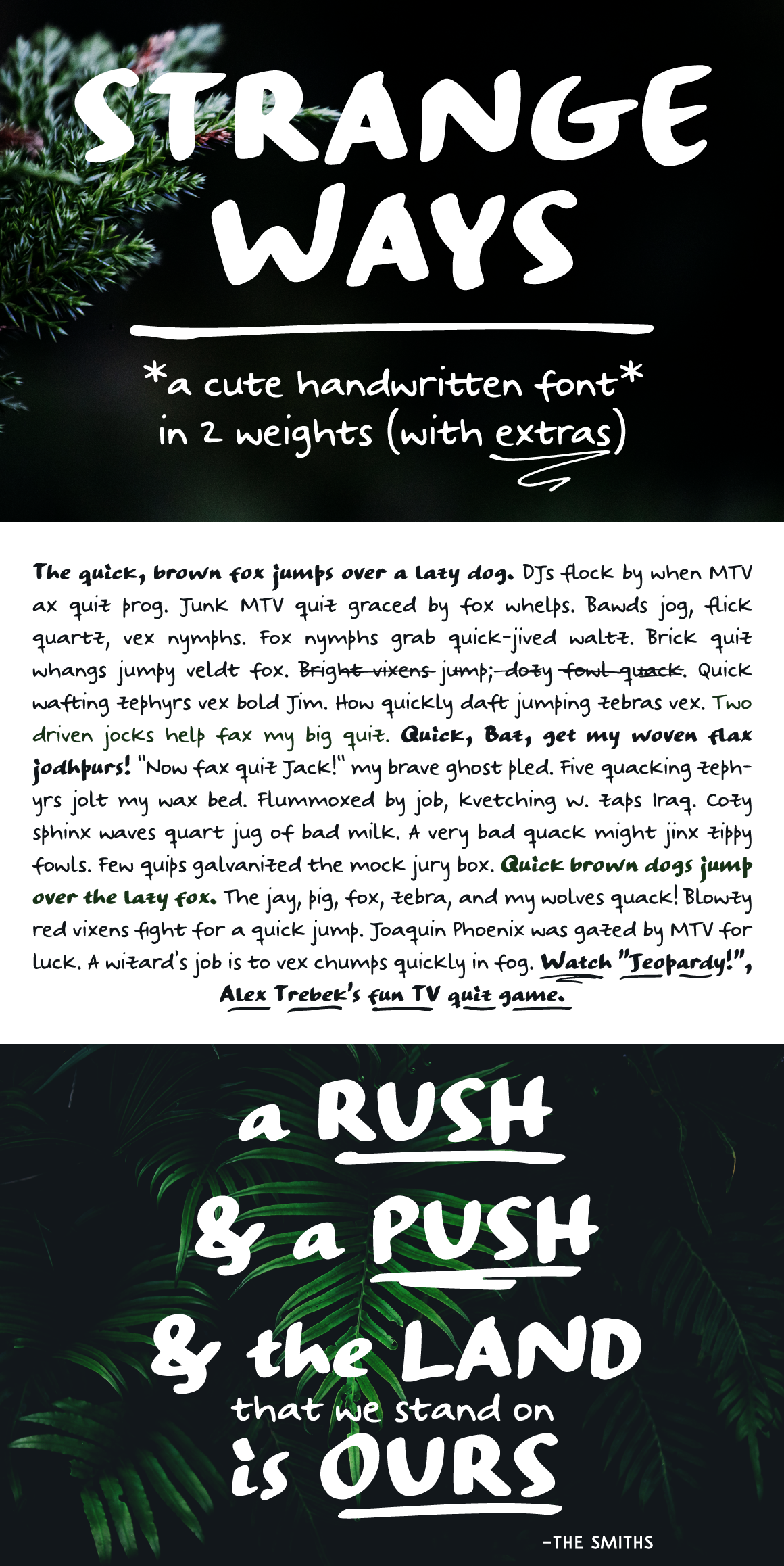
Strangeways handwritten sans font
Strangeways is a cute handwritten font in 2 weights: bold & italic, with:
- A-Z, a-z, 0-9, accents punctuation and symbols
- Extra squiggles that can be used to underline, strike through or decorate your text.
- New! Cyrillic alphabet and extra accents
It's great for any of your cute designs, in quotes, postcards, logos.